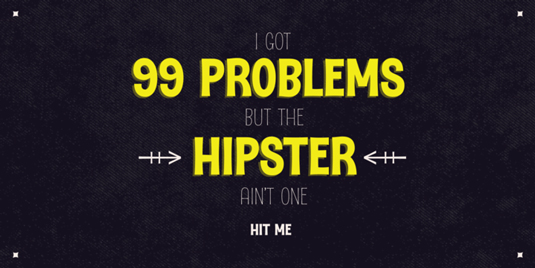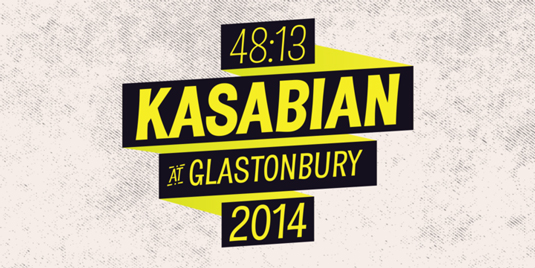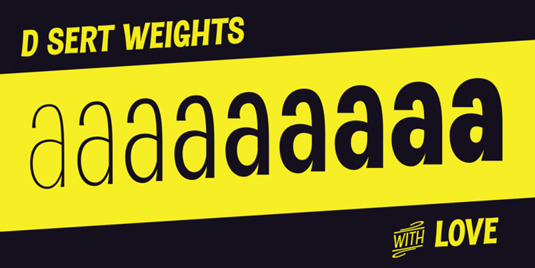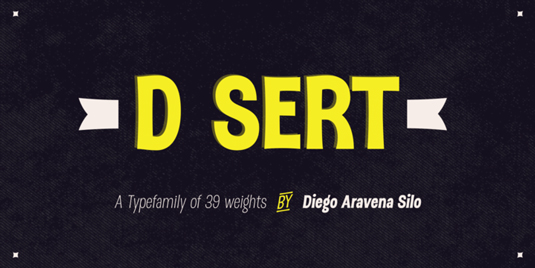
Font of the day: D Sert
D Sert from Latinotype
Created by Chilean type designer Diego Aravena Silo, D Sert is based on the Pirata typeface, and was inspired by 70s Chilean constructivist design and the political propaganda posters artwork of La Unidad Popular (Chilean political coalition). A bold design, D Sert is great for creating eye-catching headlines, posters and more.